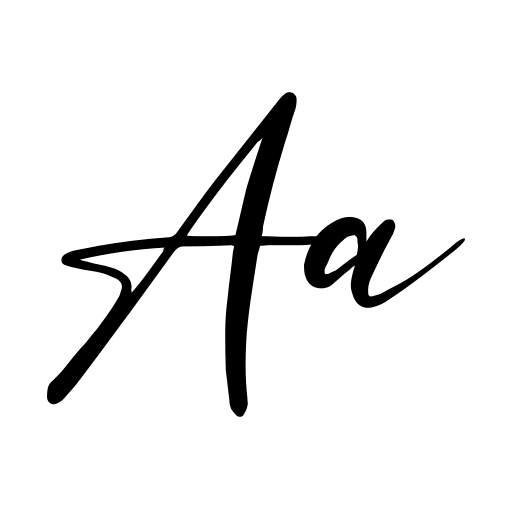
Battofi DEMO is an elegant, handwritten script font featuring a smooth, flowing style with natural, slightly varied stroke widths that give it a personal and expressive touch. Its tall, narrow letterforms and casual yet refined appearance make it ideal for creative branding, invitations, and stylish headlines where a modern, approachable, and artistic feel is desired. This font shines in designs that seek to convey warmth, sophistication, and a handcrafted quality.
Battofi DEMO Font
About Battofi DEMO Font
| Font family | Battofi DEMO Font |
| Designer | Vilogsign |